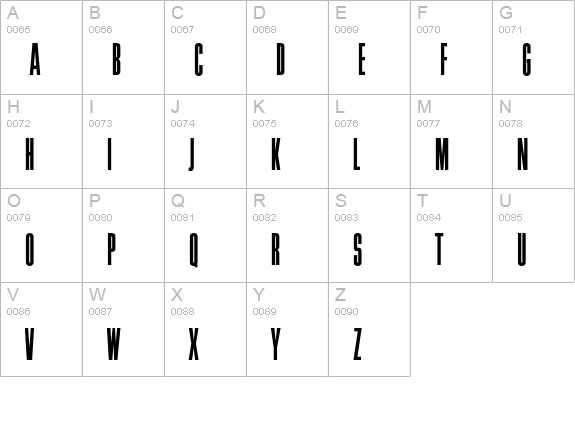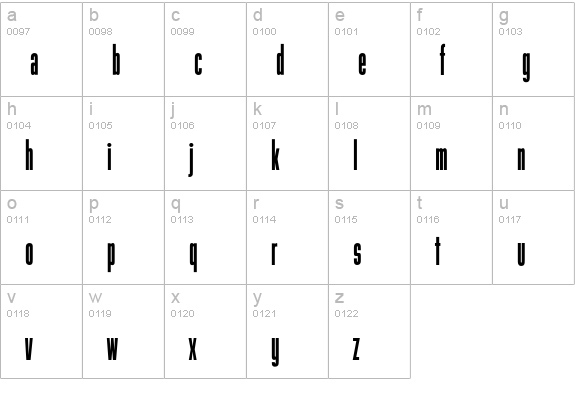
Ypsilon Font Details
Ypsilon font is a modern and stylish typeface that exudes sophistication and elegance. With its sleek lines and contemporary design, Ypsilon is perfect for a wide range of design projects, from branding to editorial design. This versatile font is ideal for creating eye-catching headlines, elegant logos, and striking packaging designs. What sets Ypsilon font apart is its unique blend of classic and modern elements, making it a truly timeless typeface. Its clean and minimalist design ensures maximum legibility, while its subtle details add a touch of sophistication. Whether you're working on a corporate identity, a fashion editorial, or a luxury brand, Ypsilon font will elevate your design to the next level. The best part? Ypsilon font is available for free download at FontsMarket.com, making it accessible to designers of all levels. Don't miss out on the opportunity to enhance your projects with this exquisite typeface. Download Ypsilon font today and let your creativity shine!